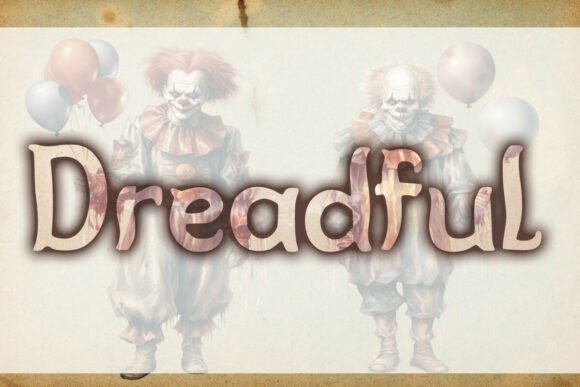
Unleash Your Creativity with Dreadful Font: The Ultimate Typography Experience
Are you tired of using the same old fonts in your design projects? Look no further than Dreadful, a versatile and audacious font that’s taking the world of typography by storm. With its unique style and endless possibilities, Dreadful is the perfect choice for designers, crafters, and artists looking to elevate their work and make a statement.
The Power of Typography: Why Dreadful Stands Out
Typography is an essential element of design, and the right font can make all the difference in conveying your message and capturing your audience’s attention. Dreadful is more than just a font – it’s an experience. Its bold, modern edge adds a touch of sophistication and creativity to any project, making it perfect for a wide range of applications, from branding ventures to social media graphics.
Endless Possibilities with Dreadful
One of the most exciting things about Dreadful is its versatility. This font seamlessly integrates into various design projects, including:
- Branding Ventures: Create a lasting impression with Dreadful’s bold and audacious style, perfect for logos, business cards, and other marketing materials.
- Magazine Layouts: Add a touch of sophistication and elegance to your magazine layouts with Dreadful’s unique typography.
- SVG Files: Use Dreadful to create stunning SVG files for cutting machines, perfect for crafters and makers.
- Greeting Cards: Make your greeting cards stand out with Dreadful’s modern and bold style.
- T-Shirts and Stickers: Express yourself with a modern edge on t-shirts, stickers, and other apparel.
- Posters: Grab attention with headline-grabbing posters that showcase Dreadful’s bold and audacious style.
- Social Media: Elevate your social media presence with Dreadful’s unique typography and style.
- Cricut Projects: Infuse creativity into your Cricut projects with Dreadful’s versatile and easy-to-use font.
What Makes Dreadful So Special?
So, what sets Dreadful apart from other fonts? Here are just a few reasons why designers and crafters are falling in love with this amazing font:
- Unique Style: Dreadful’s bold and audacious style is unlike anything you’ve seen before.
- Versatility: Use Dreadful for a wide range of projects, from branding ventures to social media graphics.
- Ease of Use: Dreadful is easy to use and seamlessly integrates into various design software.
- Customization: With Dreadful, you can customize your text to fit your project’s unique needs.
Tips and Tricks for Using Dreadful
To get the most out of Dreadful, here are a few tips and tricks to keep in mind:
- Experiment with Different Sizes: Dreadful looks great in large and small sizes, so don’t be afraid to experiment.
- Play with Color: Dreadful’s bold style looks great in a variety of colors, so try out different color combinations to find what works best for your project.
- Mix and Match: Combine Dreadful with other fonts to create a unique and eye-catching design.
Dreadful is more than just a font – it’s a design experience. With its unique style, versatility, and ease of use, Dreadful is the perfect choice for designers, crafters, and artists looking to elevate their work and make a statement. Whether you’re working on a branding venture, social media graphics, or Cricut projects, Dreadful is sure to make each creation tell a story. So why wait? Explore the possibilities aplenty with Dreadful and let its distinct charm redefine your artistic expression.